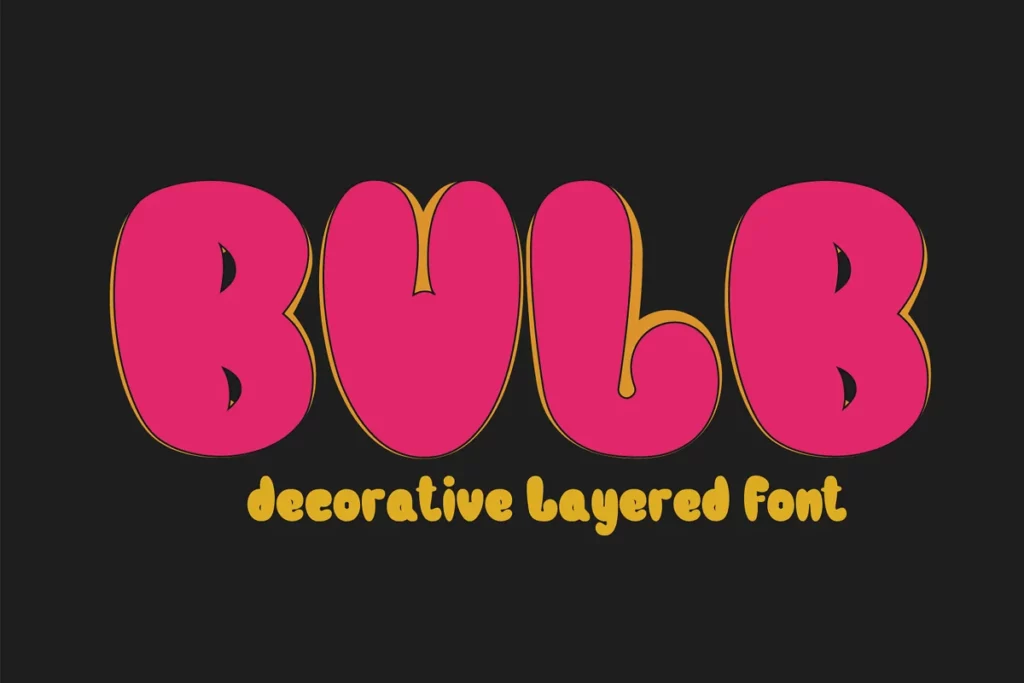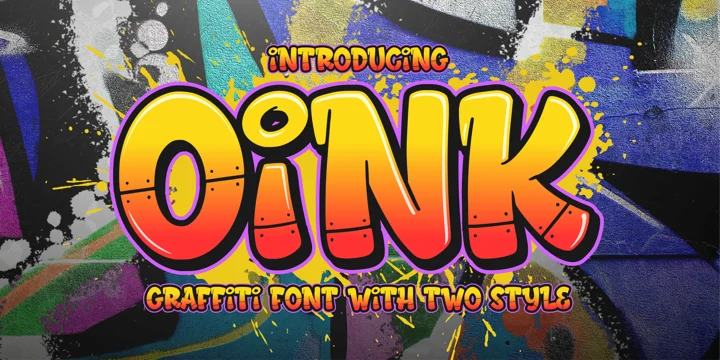
20+ Graffiti Bubble Letter Fonts for Dope Projects
Are you on the lookout for all the best graffiti bubble letter fonts? Look no further!
Graffiti is an art form that has been around for centuries and is still popular today. With the advent of digital art, it’s now easier than ever to create your own unique graffiti designs.
Whether you’re a professional artist or just starting out, you’ll find that our selection of graffiti bubble letter fonts is perfect for creating stunning pieces of art with ease. So, go ahead, let your creativity fly, and make something amazing!
10+ Best Graffiti Bubble Letter Fonts Overview
1. Street Urban Graffiti Font
2. Bubble Boom – Graffiti Font
3. Peachy Bubbly
4. Fillings Urban – Graffiti Fonts
5. Porky Mother
6. The Bold Street – Graffiti Font
7. BubbleBloods – Graffiti Display Font
8. Graffiti Boldy – Logo Font
9. Bubble graffiti font. Inflated
10. Bubble Toy | 2000s Retro Graffiti
20+ Graffiti Bubble Letter Fonts
1. Street Urban Graffiti Font
Street Urban Graffiti Font
Here’s our first contender that is sure to give your designs that classic, but nostalgic and bubbly graffiti style – Street Urban Graffiti.
In our opinion, its brilliant mix of soft edges and round curvatures is sure to call attention to your design, whether it is an event poster, party invitation, or music album cover.
After trying out the font pack, we found that it contains capitalized letters, numbers, punctuation marks, and multilingual support.
We also think that its bold design makes it perfect for headers and other projects that need to be eye-catching.
2. Bubble Boom – Graffiti Font
Bubble Boom - Graffiti Font
The second one on our list of the best graffiti bubble letter fonts is Bubble Boom.
We find this font playful since it comes in kooky characters that are perfect for a host of projects. We highly recommend using it for your next hip-hop poster, shirt design, or album cover.
Furthermore, it comes with alternate and multilingual characters that you can use to spice up your designs. You can also expect the font pack to have numbers and uppercase letters.
3. Peachy Bubbly
Peachy Bubbly - Graffiti Bubble Letter Fonts
Our next pick is a head-turner because of its vibrant and fun appearance. Peachy Bubbly is a lively, hand-drawn font that comes with alternate and multilingual characters.
It’s so playful and fun that we think it will do great for posters, labels, and shirt designs. Its melty appearance can fit many themes depending on the color you choose. For example, it can be a Halloween font or a birthday invitation font.
We also found that it’s complete with uppercase and lowercase letters, numbers, and punctuation marks. Hence, it has most of the things you’ll look for in a graffiti bubble letter font.
4. Fillings Urban – Graffiti Fonts
Fillings Urban - Graffiti Fonts
Bubbly, playful, and ballooney are the first three words that came to our minds at the sight of this graffiti font.
In our opinion, the Fillings Urban font is as bubbly as our top font recommendations for this category. It’s also cute but has the potential to be more aggressive depending on how you use it.
Furthermore, we found that it comes with upper and lower case, punctuations, numbers, and even multilingual accents.
We think that the regular style of this graffiti font is perfect for comic book designs, hip-hop posters and decals, and cartoons, while the outline style adds a unique touch of vibrance and energy.
5. Porky Mother
Porky Mother
Porky Mother. Image credit: MyFonts
In our expert opinion, the Porky Mother is the perfect font to give your text some personality.
With a bubbly and fun design, each letter looks like it has a face of its own. We can imagine that it would be perfect for some children-themed projects, like posters, cartoons, and toys.
You can create something truly unique with its Solid and Outline styles and multilingual accents, and make your next project one to remember.
We think that this graffiti font will leave an impression regardless of your client’s age.
6. The Bold Street – Graffiti Font
The Bold Street - Graffiti Font
The Bold Street – Graffiti Font. Image credit: Envato Elements
Big, bold, and most certainly beautiful, The Bold Street font is sure to add a strong, urban look to your next design project.
Its thick, blocky letters are made cohesive by its 54 ligatures and come with alternate characters, punctuation, symbols, and multilingual accents for added versatility.
7. BubbleBloods – Graffiti Display Font
BubbleBloods - Graffiti Display Font
BubbleBloods – Graffiti Display Font. Image credit: Envato Elements
Don’t let the pressure drip, drip on your next design project with this fun contender.
Bubblebloods features a bubble graffiti style, as well as stylistic alternates with drips coupled with dozens of ligatures, giving you more flexibility in your design projects.
8. Graffiti Boldy – Logo Font
Graffiti Boldy - Logo Font
Graffiti Boldy – Logo Font. Image credit: Envato Elements
If you’re looking for that comic book-style font, look no further than Graffiti Boldy.
This font features strong, blocky letters that are perfect for creating an urban look, and come with alternates and ligatures to add even more character to your design.
9. Bubble graffiti font. Inflated
Bubble graffiti font
Bubble graffiti font. Inflated. Image credit: Creative Market
Get kooky with this pick that is great for adding a touch of grunge to your next creative project.
Bubble graffiti font. Inflated is a fleshy and rounded font with paint splatters and drips that are framed with a heavy outline to make your text truly stand out.
10. Bubble Toy | 2000s Retro Graffiti
Bubble Toy | 2000s Retro Graffiti
Bubble Toy | 2000s Retro Graffiti. Image credit: Creative Market
Giving a modern twist to the classic 80’s look is this contender – the Bubble Toy font.
It comes with a whopping 6 different styles to choose from, perfect for creating posters, flyers, and other designs with a street-inspired look.
11. Bulb Layered Font
Bulb Layered Font
Bulb Layered Font. Image credit: Creative Market
Here’s a contender that will make your designs look three-dimensional – the Bulb Layered font.
Its uniquely hand-drawn style features a rounded bottom, soft edges, and a layered style to give it that 3D effect, making it the perfect font for invitations, logos, and labels.
12. Graffiti Line – Display Graffiti Font
Graffiti Line - Display Graffiti Font
Graffiti Line – Display Graffiti Font. Image credit: Envato Elements
Think Picasso meets street art with this interesting contender – The Graffiti Line font.
Its irregular, overlapping lines are complemented with dozens of ligatures, giving it a fun and quirky vibe that’s perfect for posters and shirt designs.
13. Hidebeast
Hidebeast
Hidebeast. Image credit: MyFonts
Hidebeast is another refreshing typeface that combines classic graffiti with a playful bubble-type design.
It comes with two styles, outline and blocky, as well as alternate characters and multilingual accents for that added versatility a designer needs.
14. Thick or Melted
Thick or Melted
Thick or Melted. Image credit: MyFonts
Make your designs look fresh and funky with this incredibly versatile typeface – the Thick or Melted font.
It comes in two styles, the regular and dripping, which can be bought as single packs or a family pack.
15. Urbanicity | NY Inspired Bubble Font
Urbanicity | NY Inspired Bubble Font
Urbanicity | NY Inspired Bubble Font. Image credit: Envato Elements
Let your designs sport this classic New York graffiti-style typeface that’s sure to be a head-turner.
The pack comes with an amazing array of alternate characters and six different styles that will surely elevate any branding kit, from logos to posters.
16. Bowings Graffiti Font
Bowings Graffiti Font
Bowings Graffiti Font. Image credit: Envato Elements
Everyone’s a winger (get it?) with this kooky, playful font. Its uppercase and alternative characters all come with a wing on the side, perfect for your text tails or for an interesting logo.
It also comes with punctuation, numbers, and multilingual accents, making it a great addition to your font collection.
17. Trendy Bubble comical alphabet
Trendy Bubble comical alphabet
Trendy Bubble comical alphabet. Image credit: Envato Elements
Fluffy like a cloud and full of excitement, this font is a must-have for any creative. This bubbly, whimsy font is an excellent choice for creating children’s books, comic strips, and other creative projects that need a light-hearted look.
18. Oink
Oink
Oink. Image credit: MyFonts
Rock out to this metallic, bold, and fun font. Coming in both regular and blocky styles, the Oink typeface is a great choice for making your designs pop.
It also comes with a set of symbols and multilingual characters that are perfect for making awesome headings.
19. Bomber Throw
Bomber Throw
Bomber Throw. Image credit: MyFonts
This penultimate pick is a bold and striking font that gives an urban but playful vibe. The Bomber Throw font features large curvatures that are offset by its thin, straight crossbars.
It also comes in two styles, regular and outline, making it a versatile choice for posters and headings.
20. Monk Bones
Monk Bones
Monk Bones. Image credit: MyFonts
Wrapping up our list of bubble graffiti fonts is Monk Bones, a funky font that features bold and large curvatures with bones for character hollows.
It’s a playful font that’s great for acronym logos, stickers, and flyers.
Our Favorite Graffiti Bubble Letter Fonts
Still undecided? Check out our top 12 favorite graffiti bubble letter fonts of all time below!
Bowings Graffiti Font Bubble Boom - Graffiti Font Peachy Bubbly Fillings Urban - Graffiti Fonts The Bold Street - Graffiti Font BubbleBloods - Graffiti Display Font Graffiti Boldy - Logo Font Bubble graffiti font Bubble Toy | 2000s Retro Graffiti Bulb Layered Font Graffiti Line - Display Graffiti Font Urbanicity | NY Inspired Bubble Font
Wrapping Up!
Overall, the best graffiti bubble letter fonts are spectacular picks that make it easy for you to relay a message.
Whatever street art-inspired aesthetic you want to achieve for all of your visual projects, we hope our roundup of the top picks in the category helps you streamline your search and sharpen your storytelling skills.